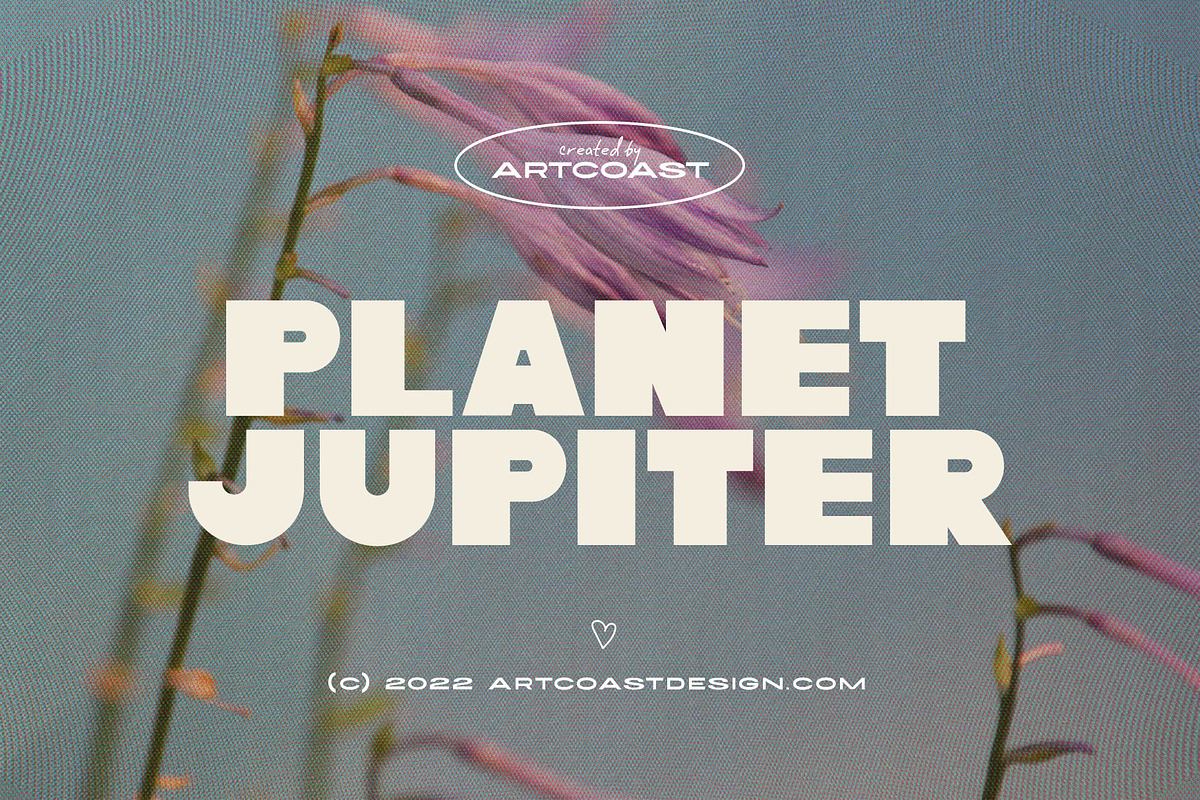
Planet Jupiter - Bold Retro Font Free Download
Planet Jupiter - Bold Retro Font Free Download is a vibrant and eye-catching typeface that captures the essence of retro design with a modern twist. Its bold and distinctive letterforms make it an excellent choice for projects aiming to evoke nostalgia while maintaining contemporary appeal. Ideal for posters, logos, branding, and advertising, Planet Jupiter adds a dynamic and playful touch to any creative endeavor.
Designed by ArtcoastStudioUS, Planet Jupiter - Bold Retro Font Free Download offers a unique blend of geometric shapes and smooth curves, resulting in a font that is both versatile and impactful. Its all-caps design ensures readability and prominence, making it suitable for headlines and attention-grabbing text.